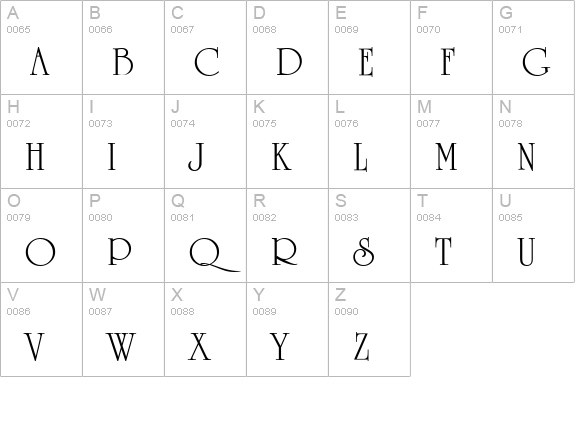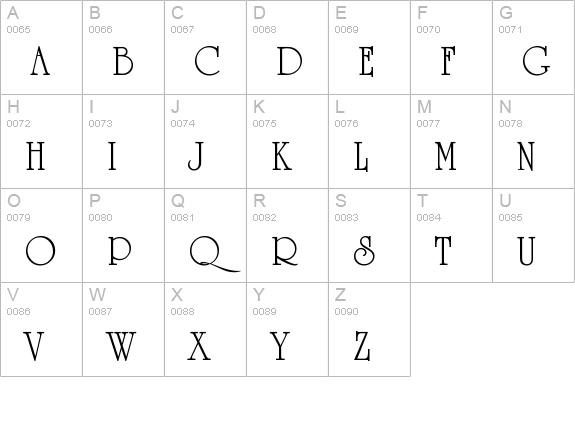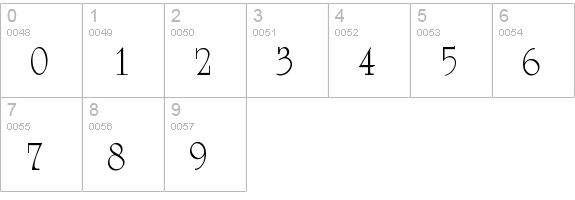
Honeymoon-Regular is the standard, neutral variant in the Honeymoon typeface family \xE2\x80\x94 well suited to general body text, paragraphs, and standard typographic work.
Honeymoon Regular font is a charming and elegant typeface that exudes sophistication and grace. Its sleek lines and classic curves make it perfect for a wide range of design projects, from wedding invitations to branding materials. The timeless appeal of Honeymoon Regular font will add a touch of luxury to any design. What's even better is that this exquisite font is available for free download at FontsMarket.com. You can easily access this beautiful typeface and enhance your projects with its stylish and refined look. Don't miss out on the opportunity to elevate your designs with Honeymoon Regular font - get it for free today!